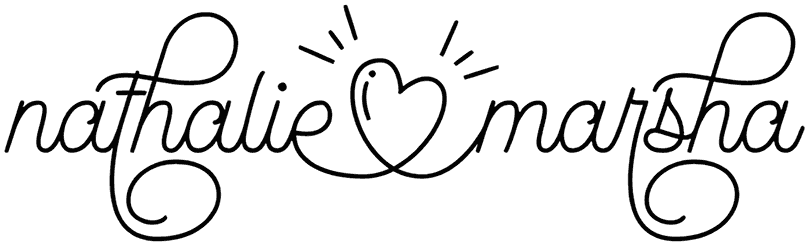
Jack Simba Font
The Jack Simba is a good fit for you if you are looking for a delightful font. With its spectacular design, this cartoon font has a fun feeling, and you can use it in positions such as animations, flyers, and postcards.
The ice cream font and the boldness of letters immediately grab the attention with their friendly and energetic vibe; thus, this script font keeps the subject in the minds of your audience.
Type ( before word to get beginning Swash and Type ) after word to get the ending Swash.
Example : (Jack Simba)
Typhoon Type™ – Suthi Srisopha
Designed by: Typhoon Type